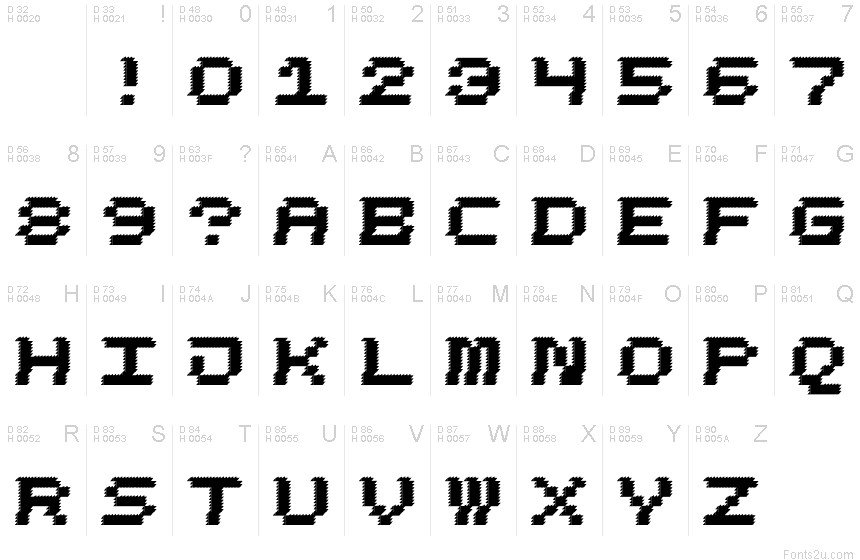
S-Video, created by ssaamm of FontStruct, is a free distorted display font with dense, pixel-built letters. Broken edges and uneven gaps give the forms the look of a damaged analog signal rather than ordinary grunge texture.
Album artwork and game interfaces can both use its screen interference effect, one for an abrasive music image and the other for a corrupted electronic world. The same fractured lettering also suits technology posters and video-themed merchandise. It is most convincing when typography needs to resemble a failing monitor or unstable broadcast.